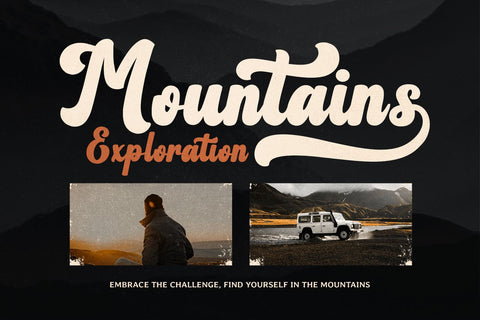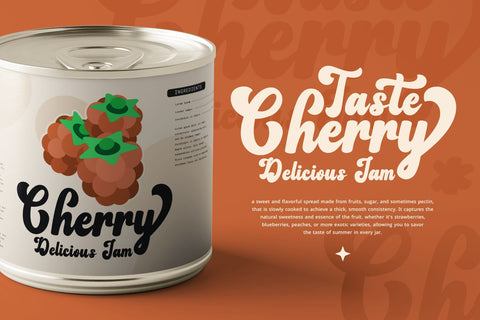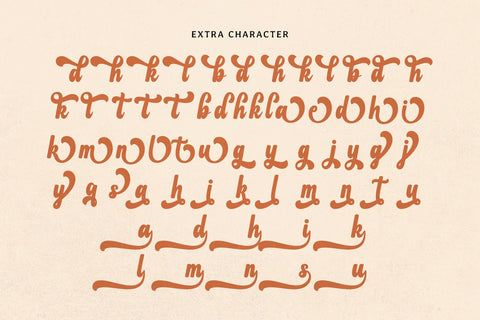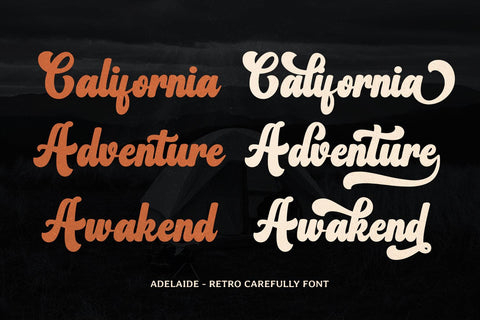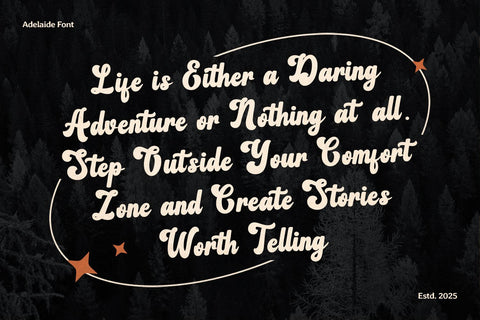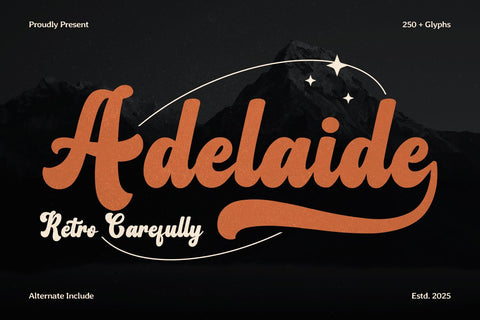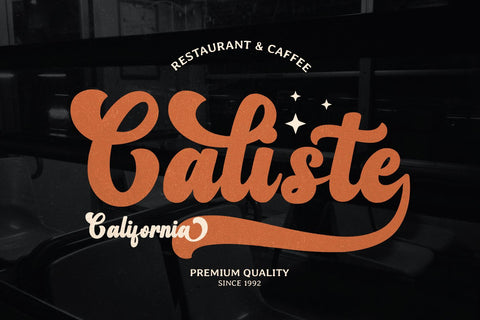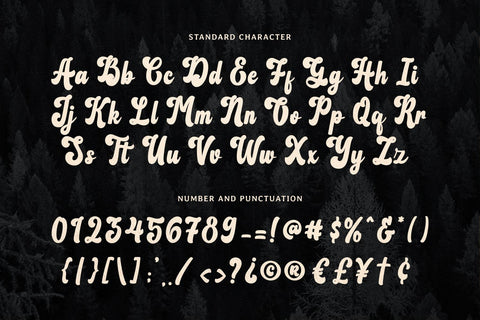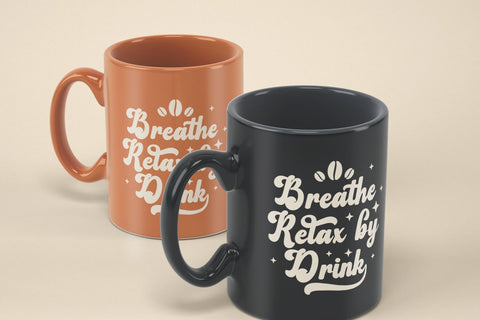
Adelaide - Vintage Font
Adelaide – A Timeless Script Handwritten Font for Retro & Vintage Designs
Step into a world of classic elegance with Adelaide, a beautifully crafted script handwritten font inspired by retro and vintage aesthetics. With its fluid strokes and graceful curves, Adelaide brings a nostalgic charm to any project, making it perfect for wedding invitations, greeting cards, branding, and more. Whether you're aiming for an old-school vibe or a touch of sophistication, this font delivers a seamless blend of vintage allure and modern usability.
Designed with creativity in mind, Adelaide comes with a wealth of alternate characters and stylish swashes, giving you the freedom to create truly unique typography. The PUA Encoding ensures effortless access to all special characters, making customization easier than ever. Add personality and flair to your lettering with beautifully flowing alternates that enhance every word with a handcrafted touch.
From logos and business cards to posters and social media graphics, Adelaide elevates your designs with its timeless script style. Its smooth, organic strokes mimic authentic handwriting, making it an ideal choice for designers looking to infuse warmth and character into their work. Whether you're working on a passion project or a professional piece, this font adapts to your creative vision effortlessly.
- Alternate glyphs & Unique Ligature.